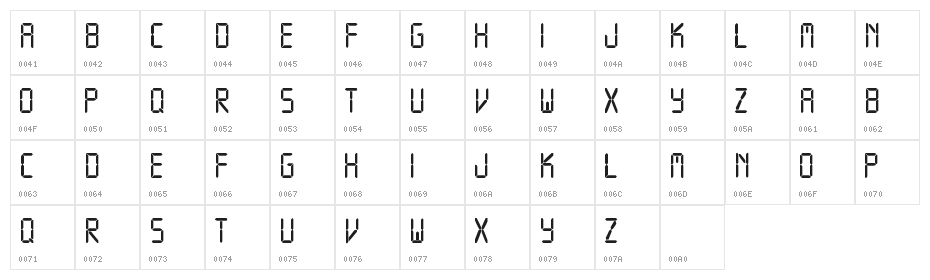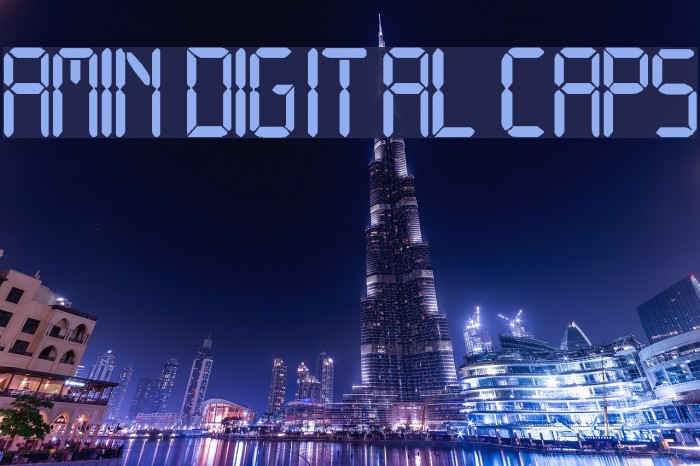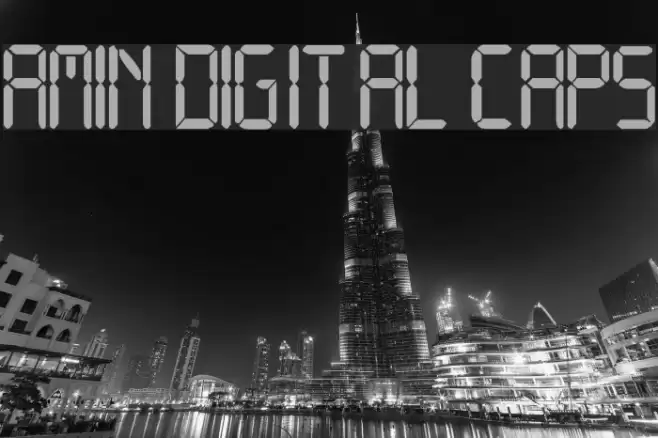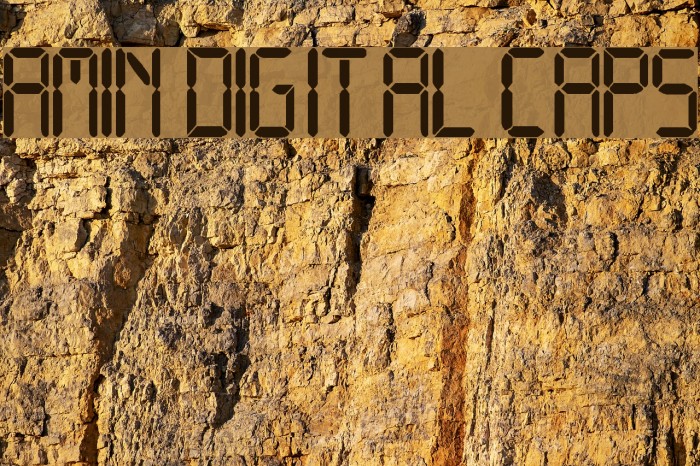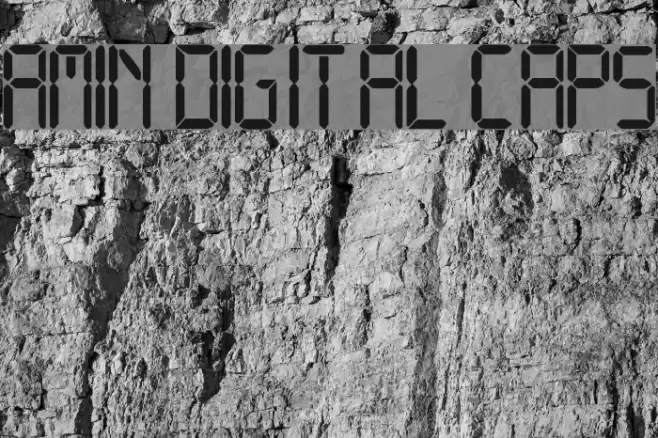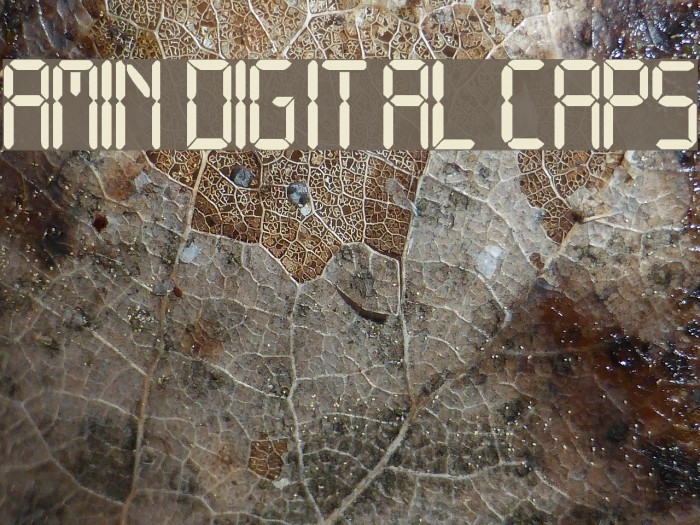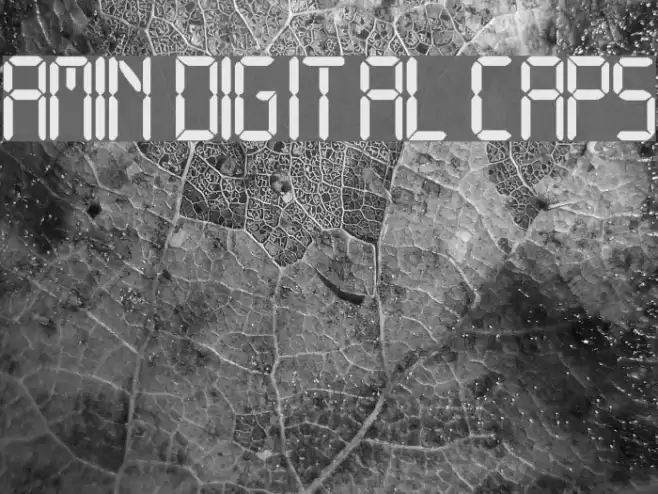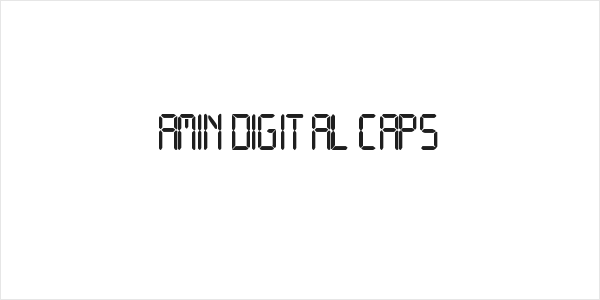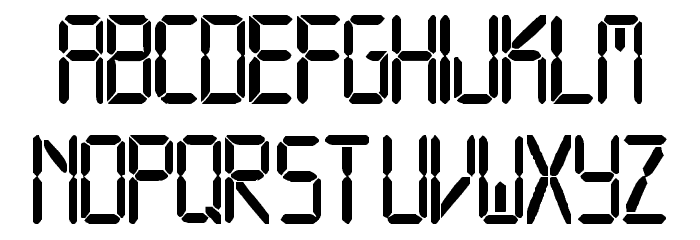
Amin Digital CAPS Font
Amin Digital CAPS Description
This font features a digital, segmented style reminiscent of old digital clocks and displays. Each character is constructed from a series of straight lines and angles, creating a geometric and futuristic appearance. The design is uniform across both uppercase and lowercase letters, maintaining a consistent aesthetic. The characters are bold and have a strong presence, making them highly legible even at smaller sizes. The font's unique style is ideal for projects that require a modern, tech-inspired look.
| Proposed Projects | Ideal for digital interfaces, tech branding, futuristic designs, and electronic-themed projects. |